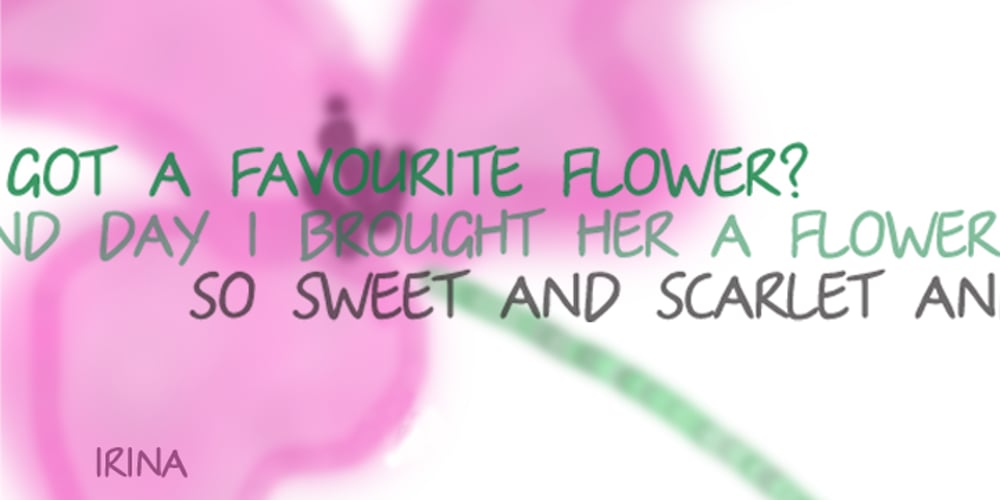
Irina Font Family was designed by Tagir Safayev and published by ParaType. Irina contains 1 styles and family package options. Designed at ParaType in 1995 by Tagir Safayev. Based on informal handwriting (caps-only). For use in advertising and display typography.